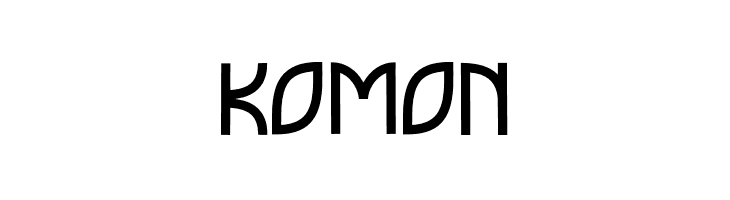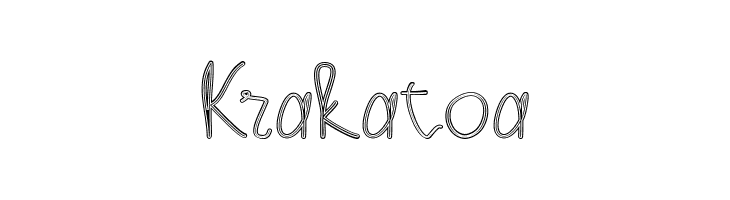
A bold, geometric font with a futuristic and dynamic style.
A playful, rounded font with a bold and friendly appearance.
A modern, geometric font with a bold and sleek design.
A bold, angular font with a geometric style, perfect for striking headlines.
A playful, handwritten font with flowing, cursive letters and a whimsical style.
A playful, handwritten font with floral embellishments and bold strokes.
An elegant, cursive handwritten font with flowing, interconnected letters.
A bold, geometric font with strong, angular lines and a modern aesthetic.
A bold, geometric font with strong, angular lines and a modern industrial look.
A playful, handwritten script font with fluid, connected characters.